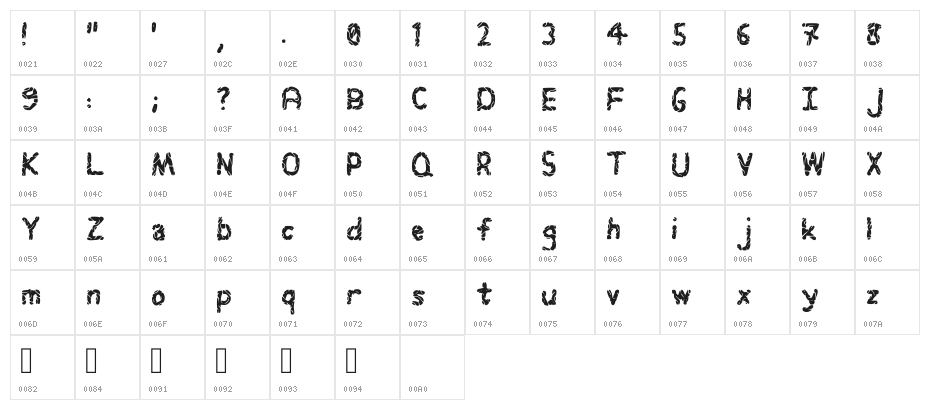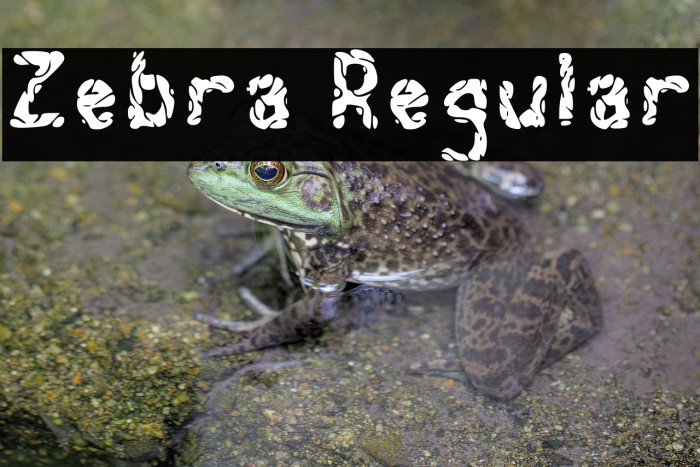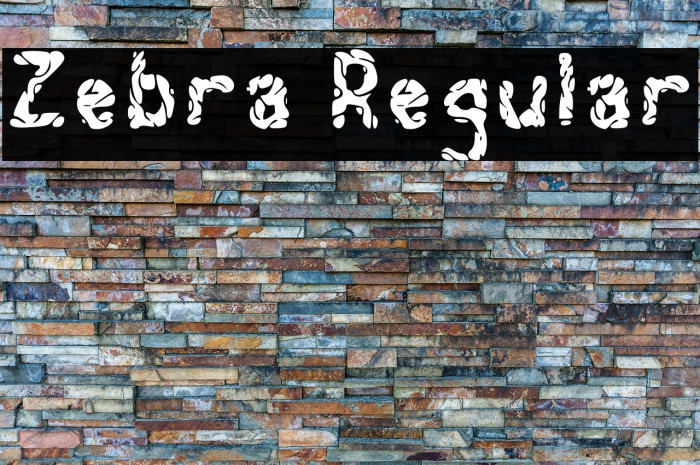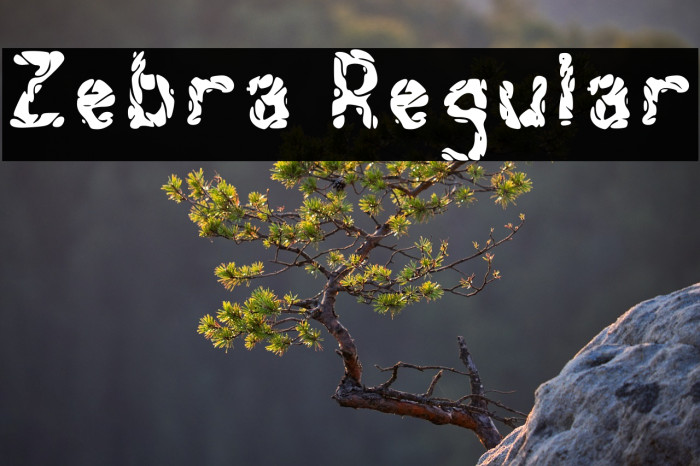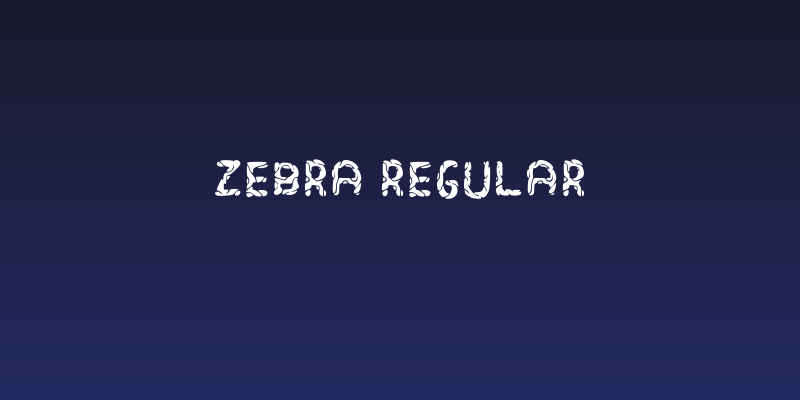
Zebra Regular Font
| Caz de utilizare | Logos, Posters, Creative projects |
| Proiecte propuse | Ideal for children's book covers, playful branding, creative posters, and artistic projects that require a bold and unique typeface. |